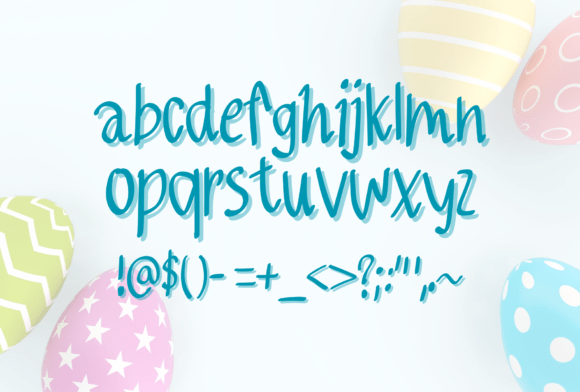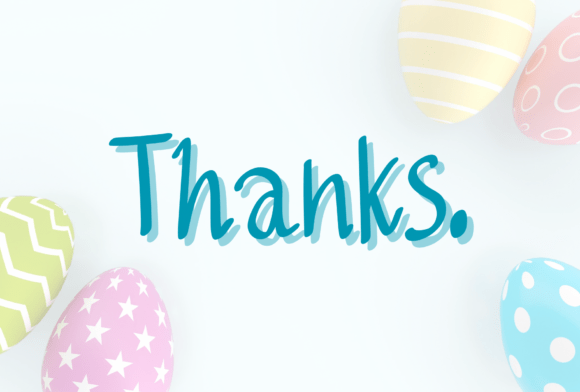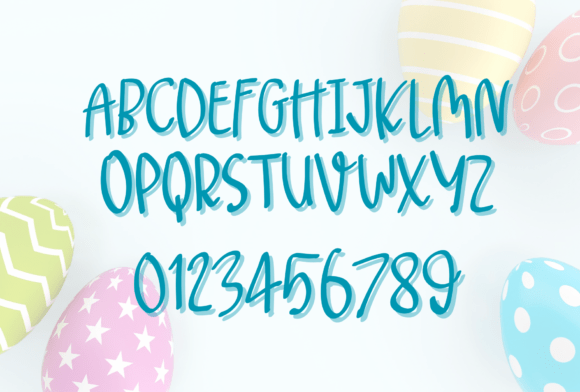
Baby Brown Font: The Perfect Handwritten Font for Digital Note-Taking and Design
In the world of digital design, the right font can make all the difference. For those who love handwritten notes and want to add a personal touch to their digital creations, Baby Brown Font is an excellent choice. This neat handwritten font is perfect for digital note-taking and works great for various projects, from Procreate to blog posts, logos, branding, and more.
What is Baby Brown Font?
Baby Brown Font is a versatile and charming handwritten font that is ideal for adding a personal touch to any design. Its neat and clean strokes make it perfect for digital note-taking, and its friendly appearance makes it suitable for a wide range of projects. Whether you’re a designer, crafter, or simply someone who loves to create digital content, Baby Brown Font is a great addition to your font collection.
Uses of Baby Brown Font
Baby Brown Font is an incredibly versatile font that can be used for various projects, including:
- Procreate: Add a personal touch to your Procreate designs with Baby Brown Font. Its handwritten style makes it perfect for creating custom brushes, quotes, and more.
- Blog Posts: Use Baby Brown Font to add a friendly and approachable tone to your blog posts. It’s perfect for headings, subheadings, and body text.
- Logos and Branding: Create a unique and memorable logo with Baby Brown Font. Its cute and playful style makes it perfect for branding and packaging design.
- Digital Planners: Add a personal touch to your digital planners with Baby Brown Font. It’s perfect for creating custom layouts, headers, and footers.
- Invitations and Greeting Cards: Create beautiful and personalized invitations and greeting cards with Baby Brown Font. Its handwritten style makes it perfect for special occasions.
- Photo Albums: Use Baby Brown Font to add captions and quotes to your photo albums. Its friendly appearance makes it perfect for creating personalized and memorable albums.
- Decorations: Add a personal touch to your digital decorations with Baby Brown Font. It’s perfect for creating custom wallpapers, stickers, and more.
Features of Baby Brown Font
Baby Brown Font has several features that make it an excellent choice for designers and crafters:
- Multi-Language Support: Baby Brown Font supports multiple languages, making it perfect for designers and crafters who work with international clients or want to create content for a global audience.
- Cute and Personal Touch: Baby Brown Font adds a cute and personal touch to any design, making it perfect for creating unique and memorable content.
- iPad and GoodNotes Friendly: Baby Brown Font is optimized for use on iPads and GoodNotes, making it perfect for digital note-taking and design.
Tips for Using Baby Brown Font
Here are some tips for using Baby Brown Font:
- Experiment with Different Sizes: Baby Brown Font looks great in various sizes, from small to large. Experiment with different sizes to find the perfect fit for your project.
- Pair with Other Fonts: Baby Brown Font pairs well with other fonts, such as sans-serif fonts. Experiment with different font combinations to create a unique look.
- Use for Headings and Body Text: Baby Brown Font is perfect for both headings and body text. Use it to create a consistent look throughout your project.
In conclusion, Baby Brown Font is a versatile and charming handwritten font that is perfect for digital note-taking and design. Its cute and personal touch makes it suitable for a wide range of projects, from Procreate to blog posts, logos, branding, and more. With its multi-language support and iPad and GoodNotes friendly features, Baby Brown Font is an excellent choice for designers and crafters who want to create unique and memorable content.